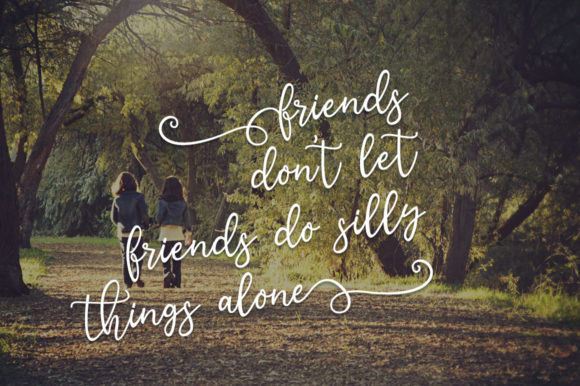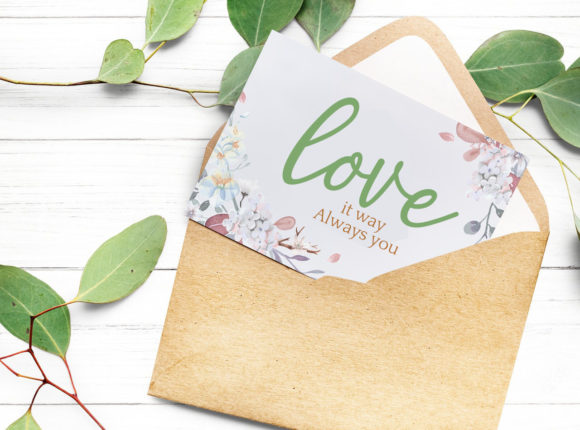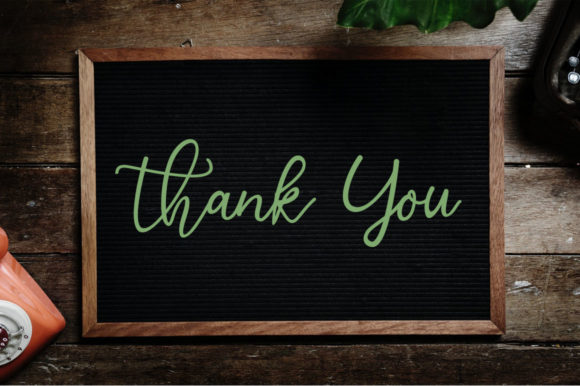
Audrey Love Font: Elevate Your Design Projects with a Stunning Handwritten Style
Audrey Love is a breathtakingly beautiful handwritten font that exudes a bold and confident feel. This gorgeous font is designed to transform any design project into a true standout, making it a must-have for designers, crafters, and anyone looking to add a touch of elegance and sophistication to their work.
What Makes Audrey Love Font So Special?
Audrey Love Font is a unique and eye-catching handwritten font that boasts a bold and expressive style. Its distinctive characters and flowing lines make it perfect for a wide range of design projects, from branding and advertising to packaging and digital media. Whether you’re looking to create a stunning logo, a beautiful social media graphic, or a captivating website, Audrey Love Font is the perfect choice.
Key Features of Audrey Love Font
- Bold and Expressive Style: Audrey Love Font features a bold and expressive style that is sure to grab attention and make your design projects stand out.
- Handwritten with Love: This beautiful font is handwritten with love and care, giving it a personal and unique touch that sets it apart from other fonts.
- High-Quality Design: Audrey Love Font is designed with high-quality and precision, ensuring that it looks stunning in any design project.
- Easy to Read: Despite its bold style, Audrey Love Font is easy to read and understand, making it perfect for use in a wide range of design projects.
- Versatile: This amazing font is versatile and can be used in a variety of design projects, from digital media to print materials.
Design Project Ideas Using Audrey Love Font
Audrey Love Font is a versatile font that can be used in a wide range of design projects, including:
- Branding and Logo Design: Create a stunning logo or brand identity using Audrey Love Font, perfect for businesses, products, or services.
- Social Media Graphics: Design eye-catching social media graphics, such as Facebook posts, Instagram stories, or Twitter headers, using Audrey Love Font.
- Packaging Design: Add a touch of elegance and sophistication to your packaging design using Audrey Love Font, perfect for product labels, packaging inserts, or instruction manuals.
- Digital Media: Use Audrey Love Font in your digital media projects, such as video titles, website headers, or email newsletters.
Audrey Love Font is a stunning and beautiful handwritten font that can elevate any design project into a true standout. With its bold and expressive style, high-quality design, and versatility, this font is perfect for designers, crafters, and anyone looking to add a touch of elegance and sophistication to their work. Whether you’re creating a logo, social media graphic, packaging design, or digital media project, Audrey Love Font is the perfect choice.